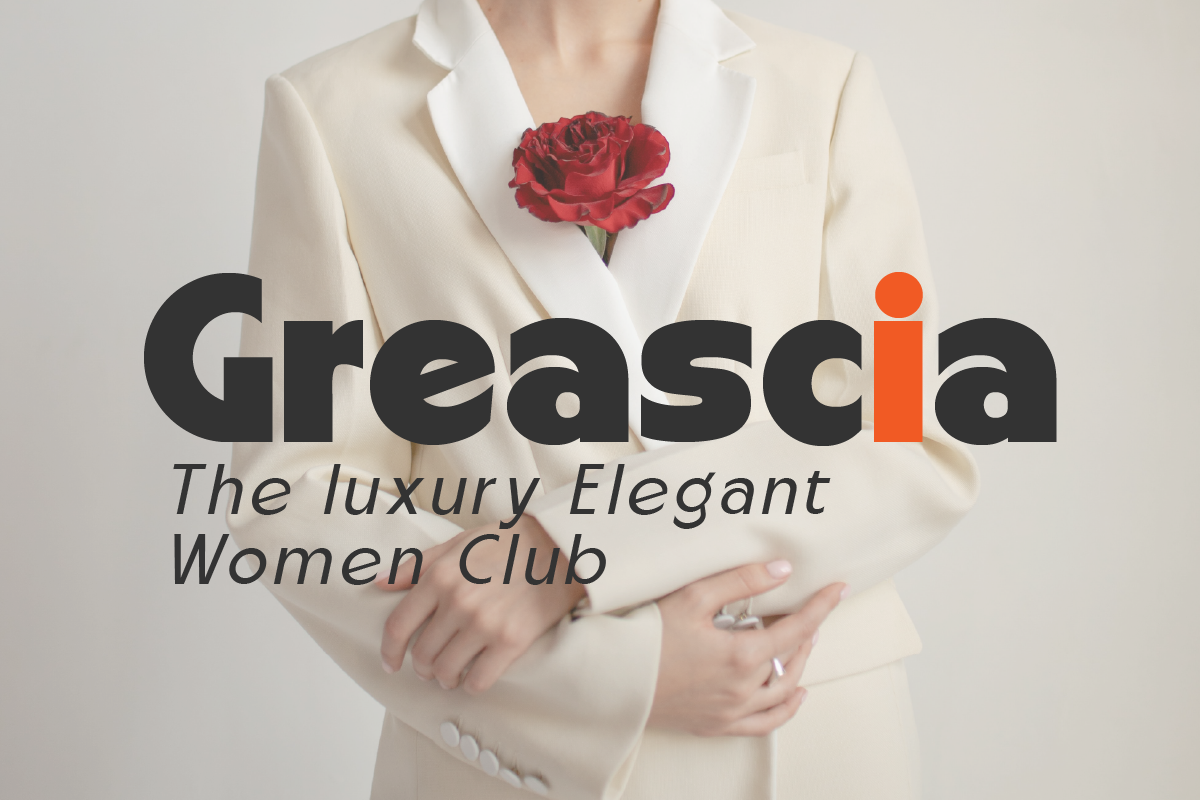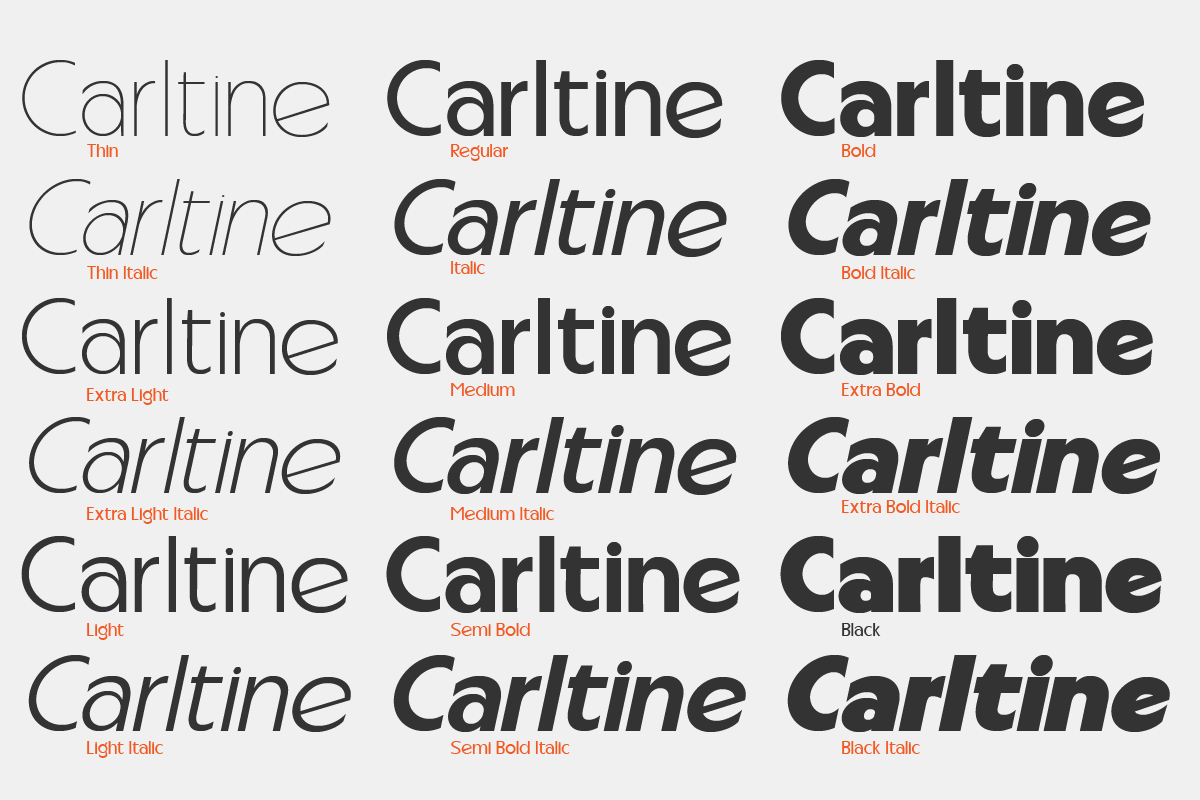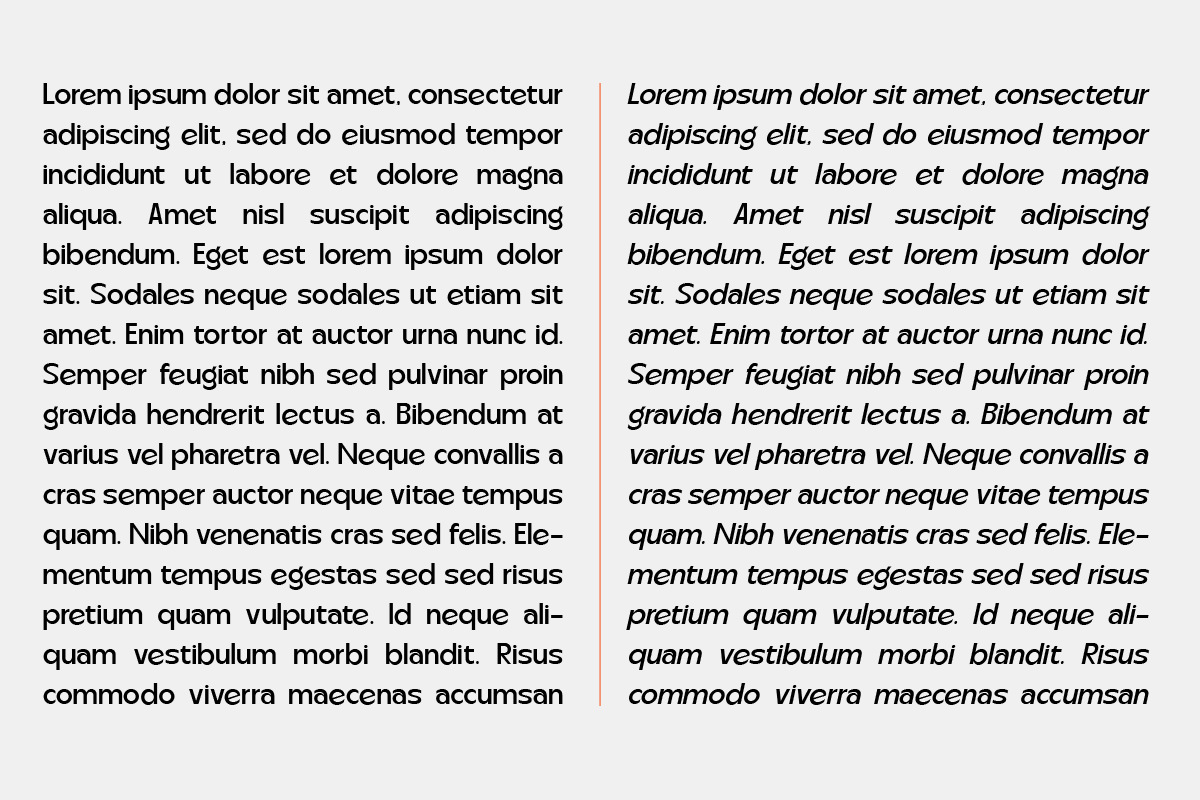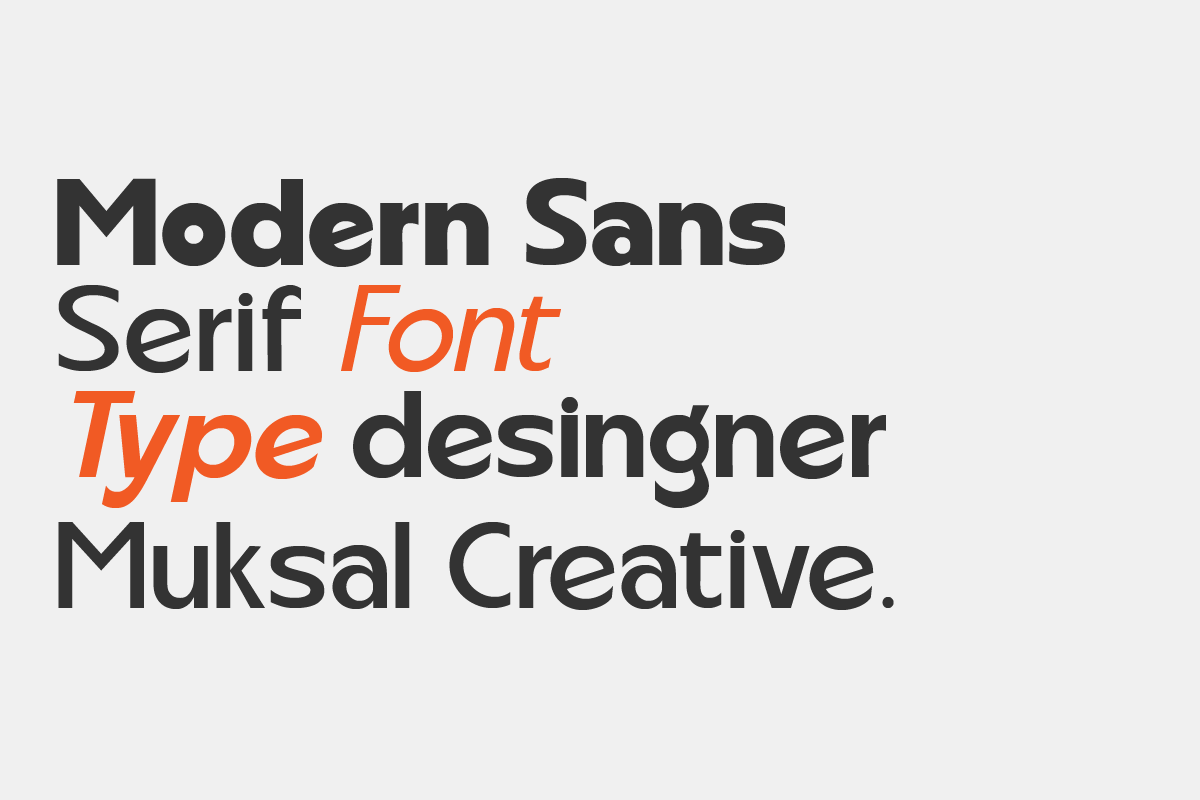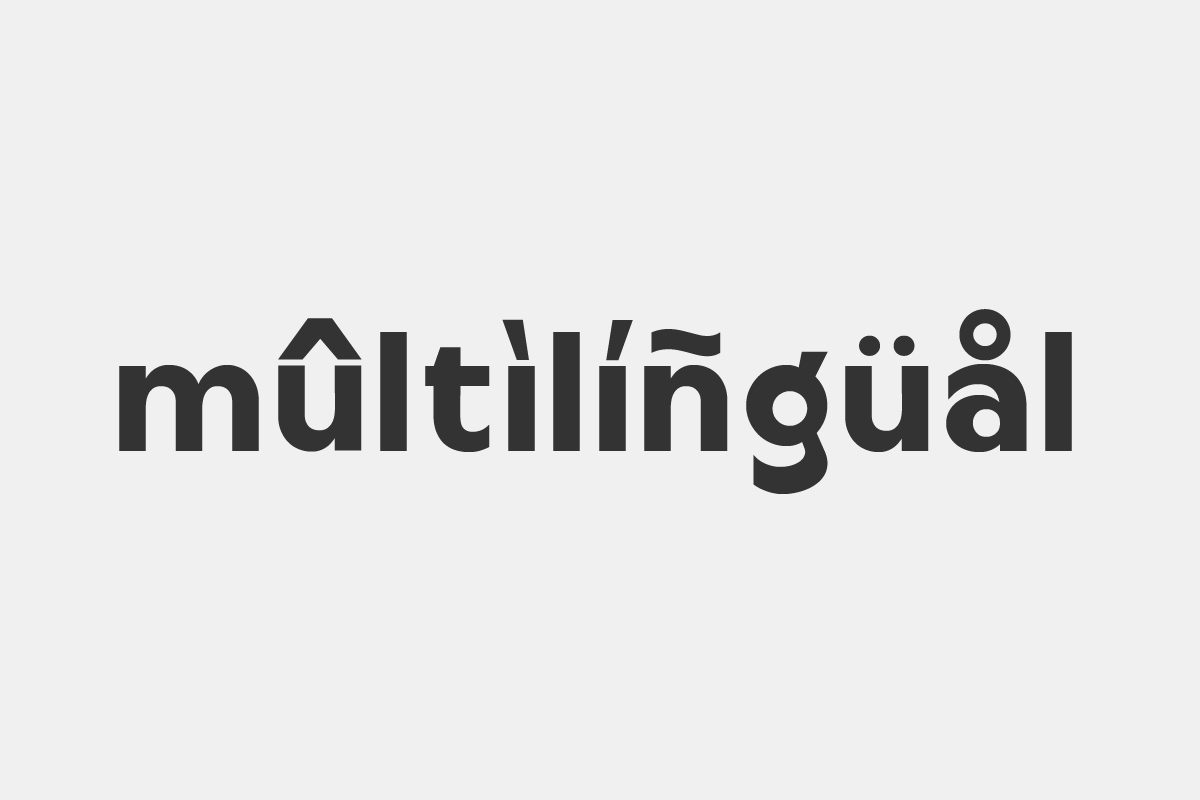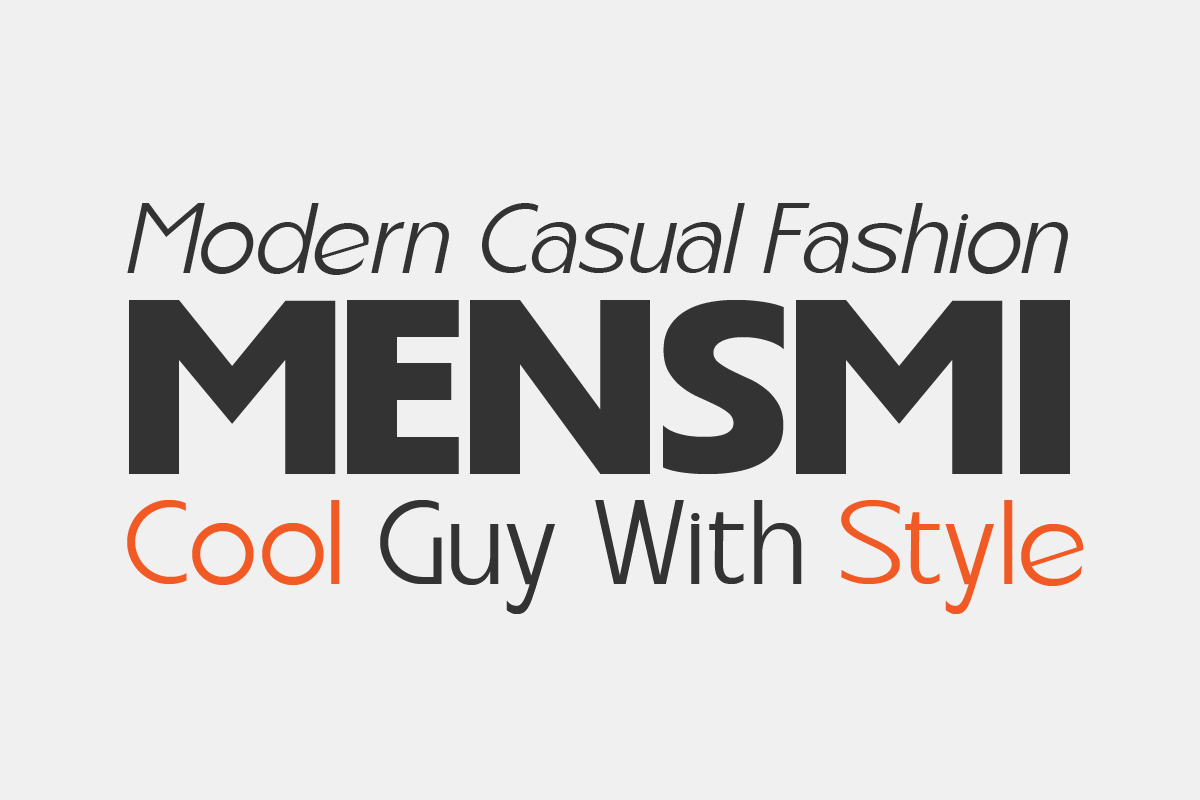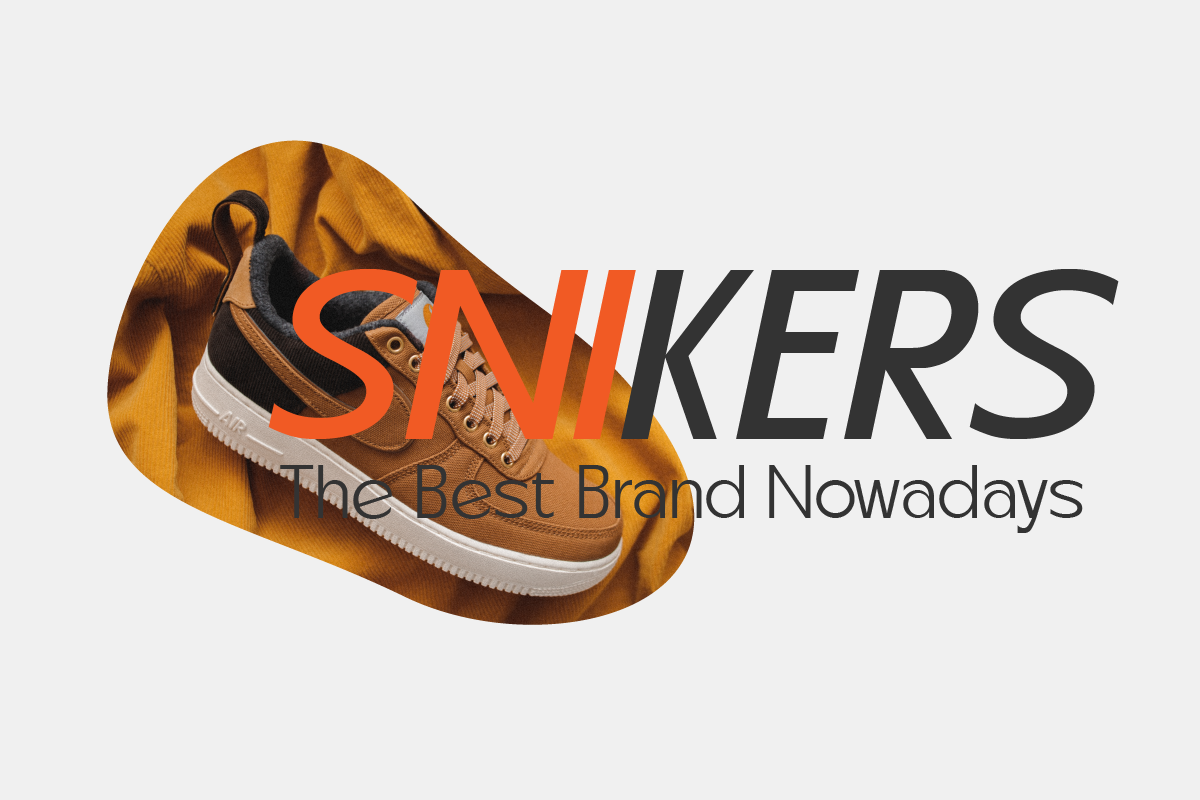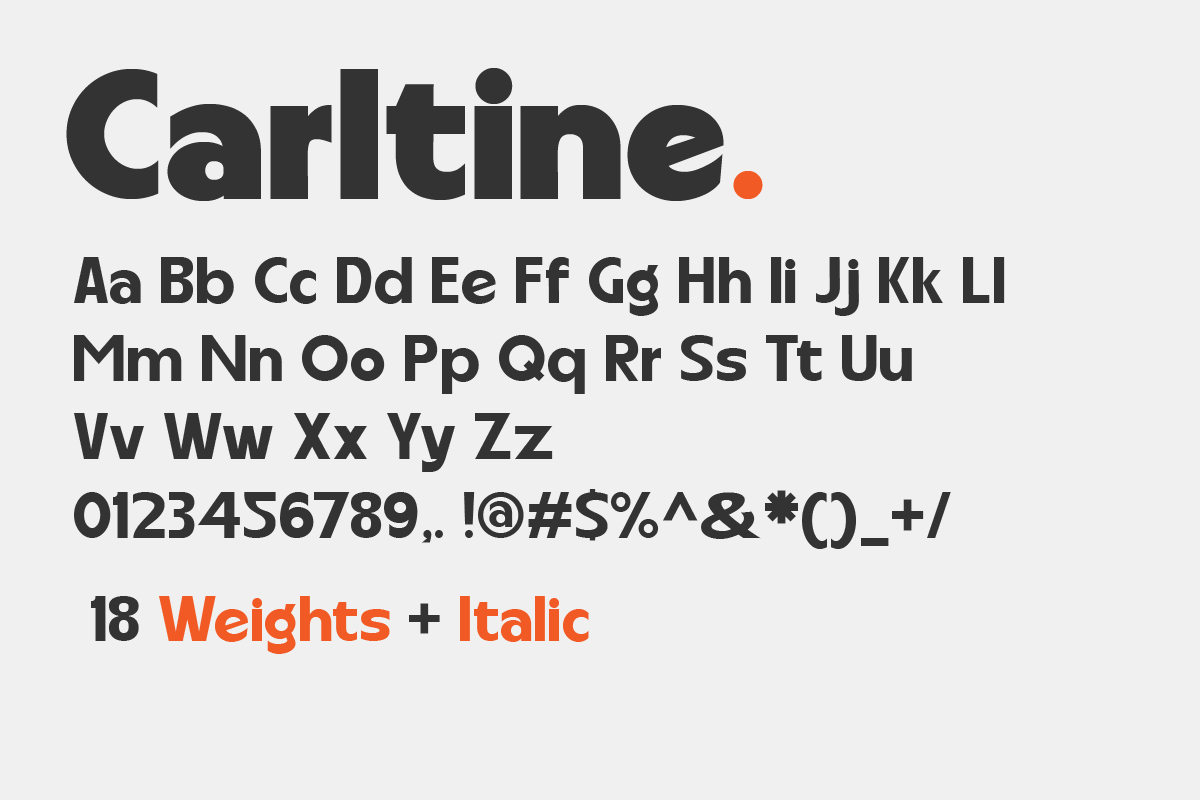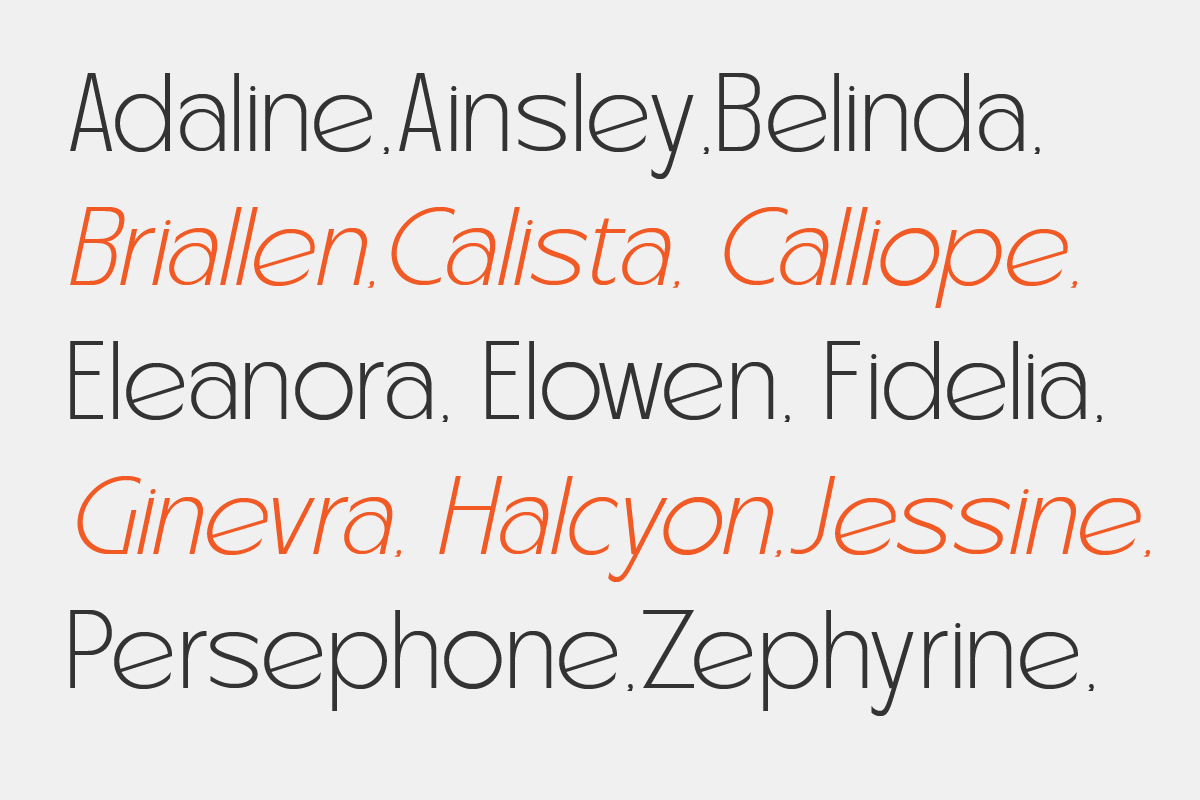
Carltine
Carltine is a unique and modern family of Sans serif fonts. Simply Conception has 18 families Regular and italic font, starting from the small thin to the largest black. This typeface is versatile and can be used successfully in magazines, posters, branding, websites.